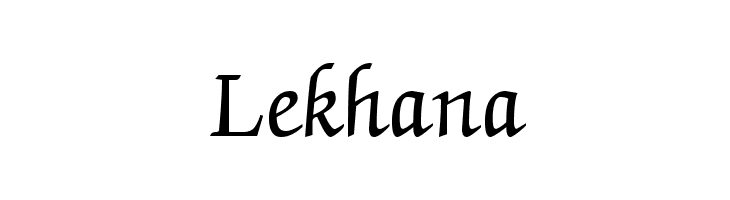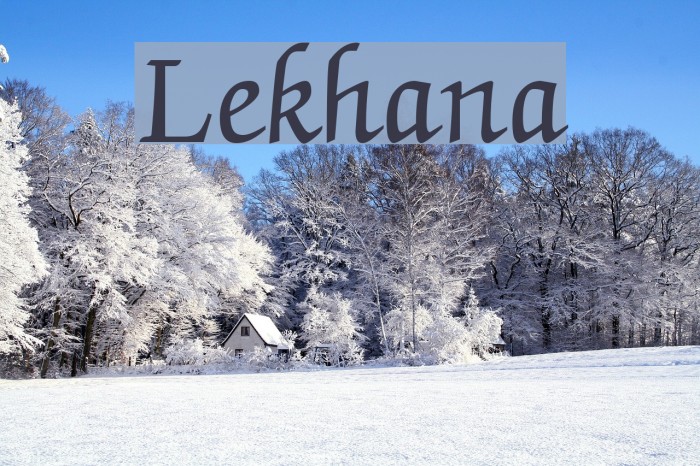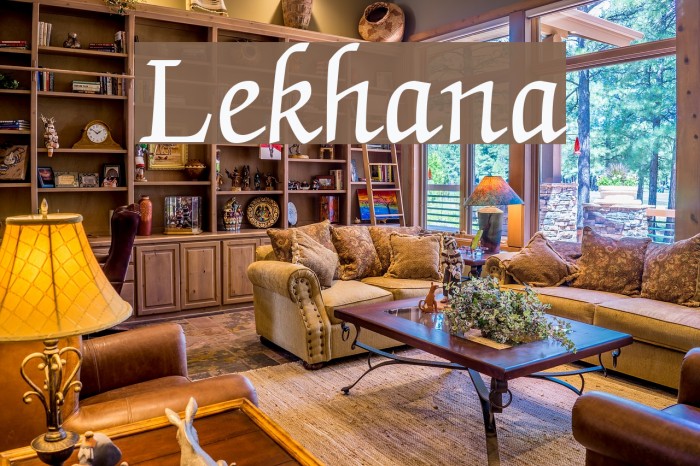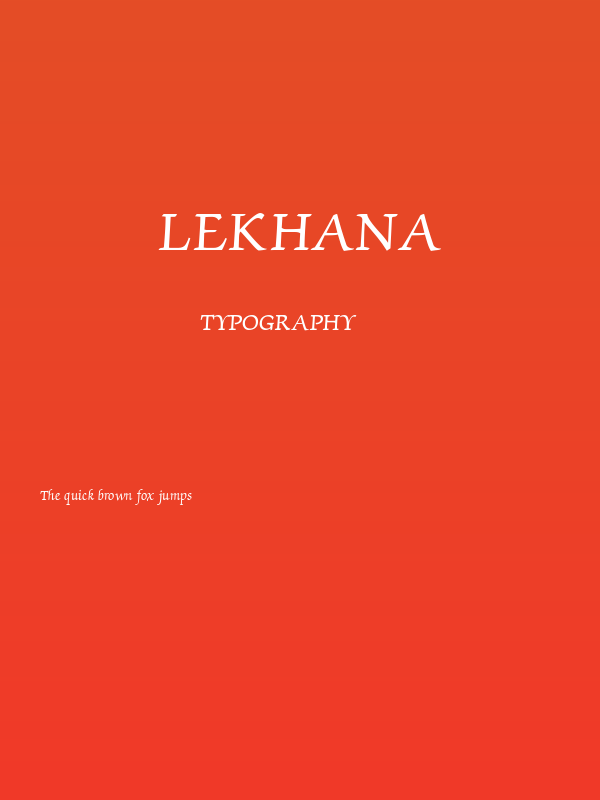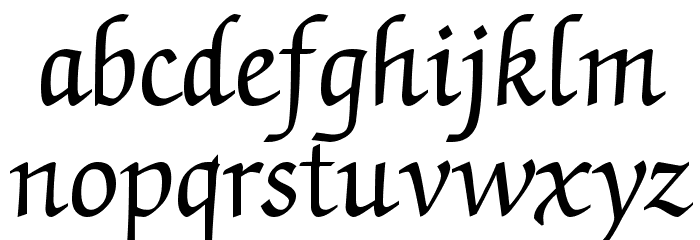
Lekhana Font
Lekhana Description
This font features a classic serif design with a slight slant, giving it a touch of elegance and fluidity. The uppercase letters are bold and commanding, while the lowercase letters maintain a consistent style with a slightly more delicate appearance. The numerals are clear and distinct, ensuring readability. Special characters are well-integrated, maintaining the overall aesthetic. The font's design is versatile, suitable for both formal and creative applications, offering a balance between tradition and modernity.
| Proposed Projects | Ideal for book covers, formal invitations, branding materials, and editorial design. |